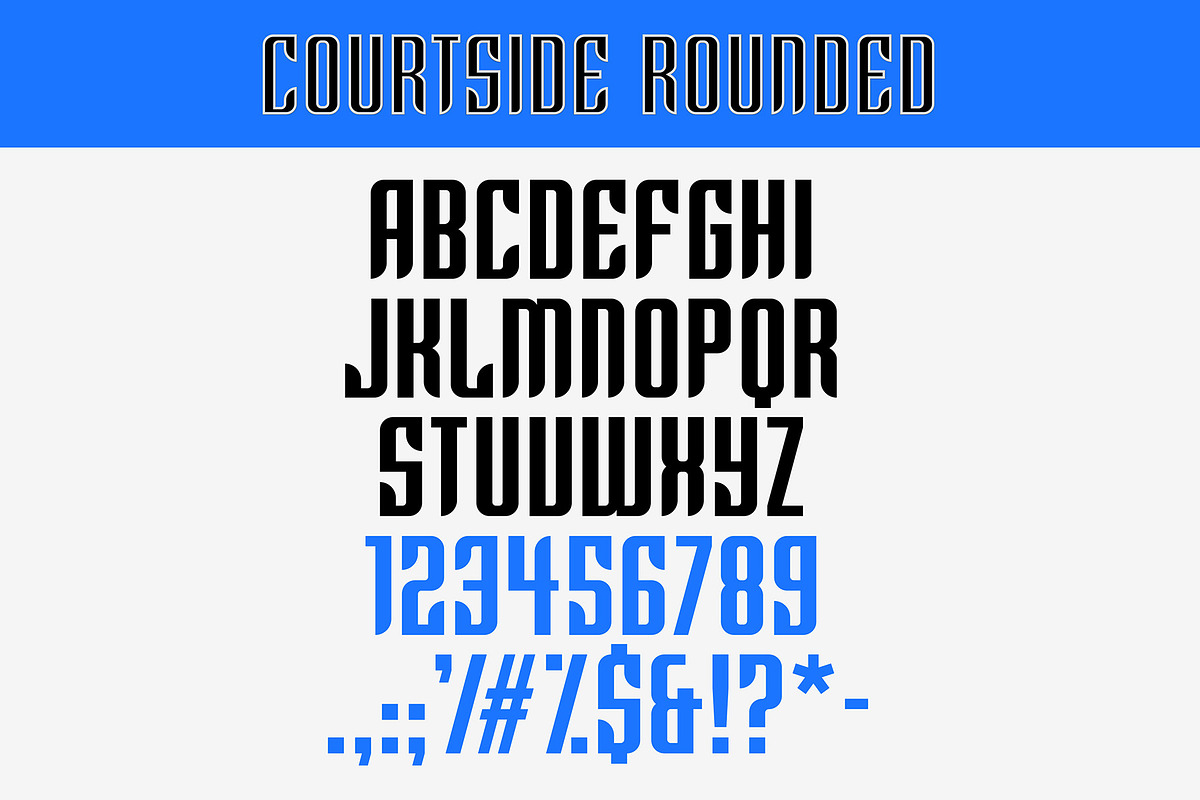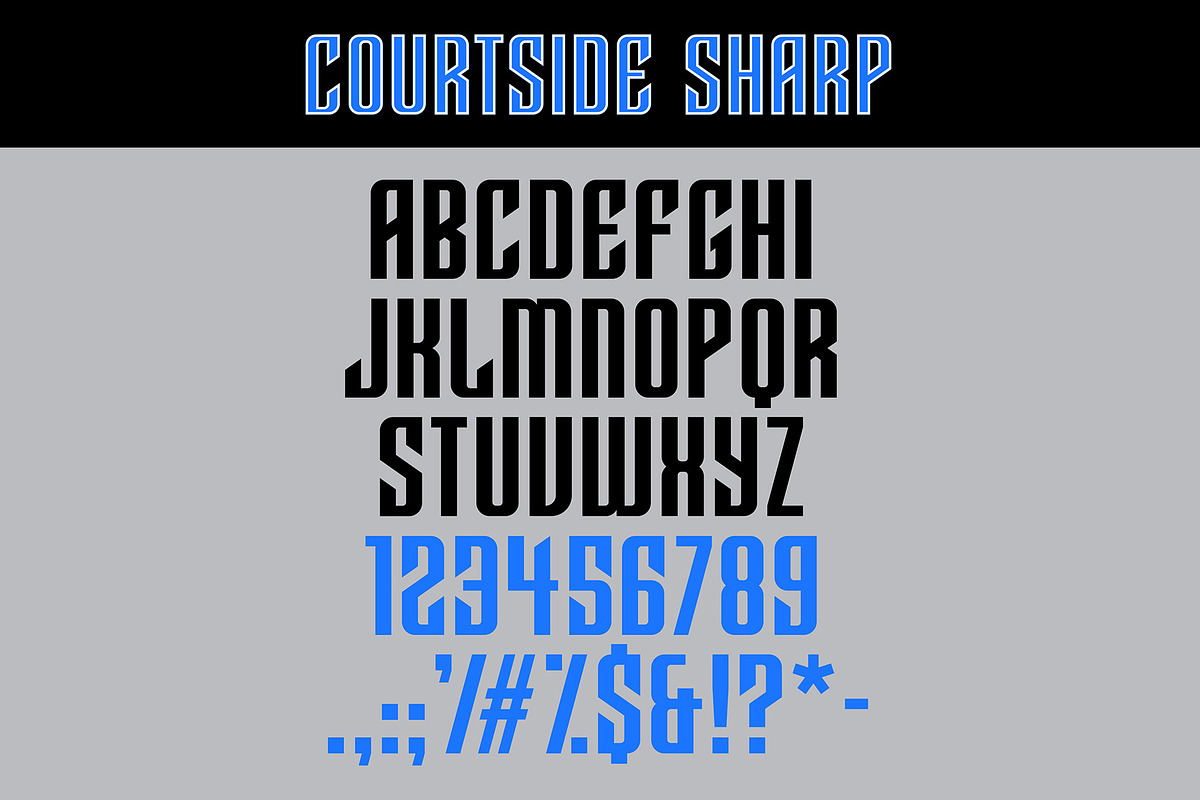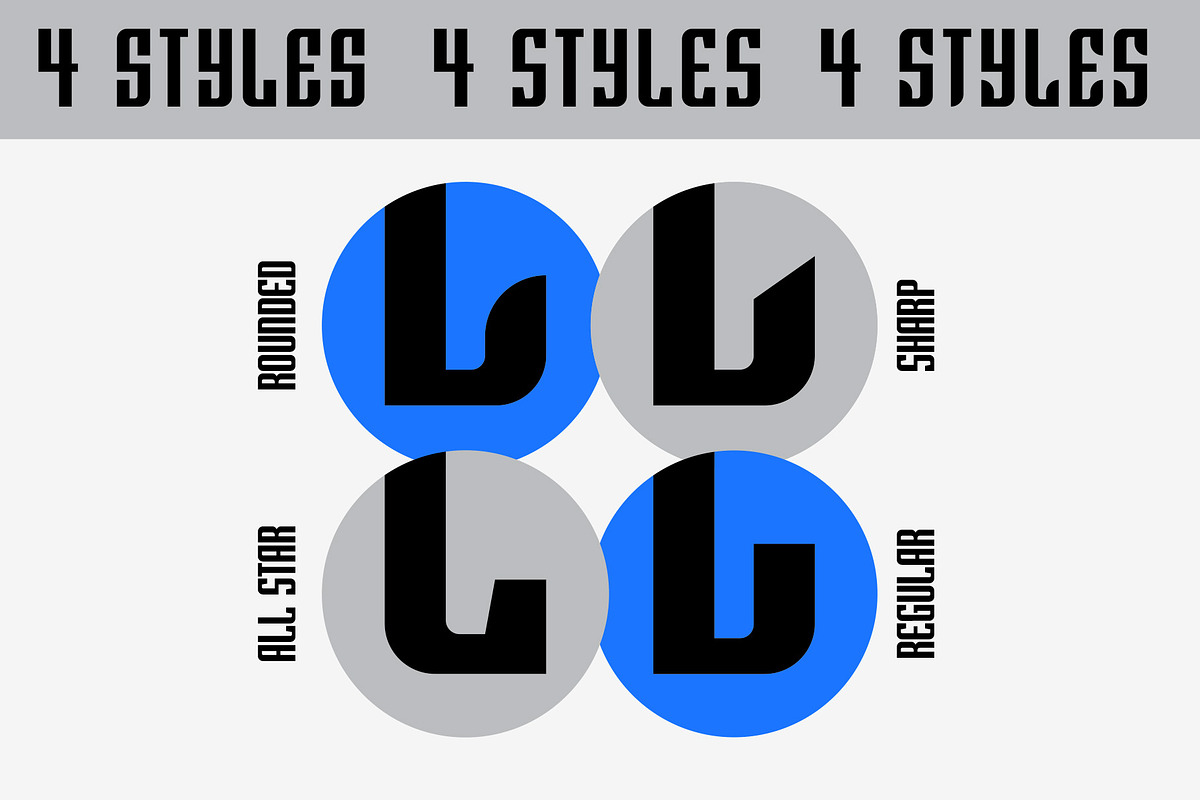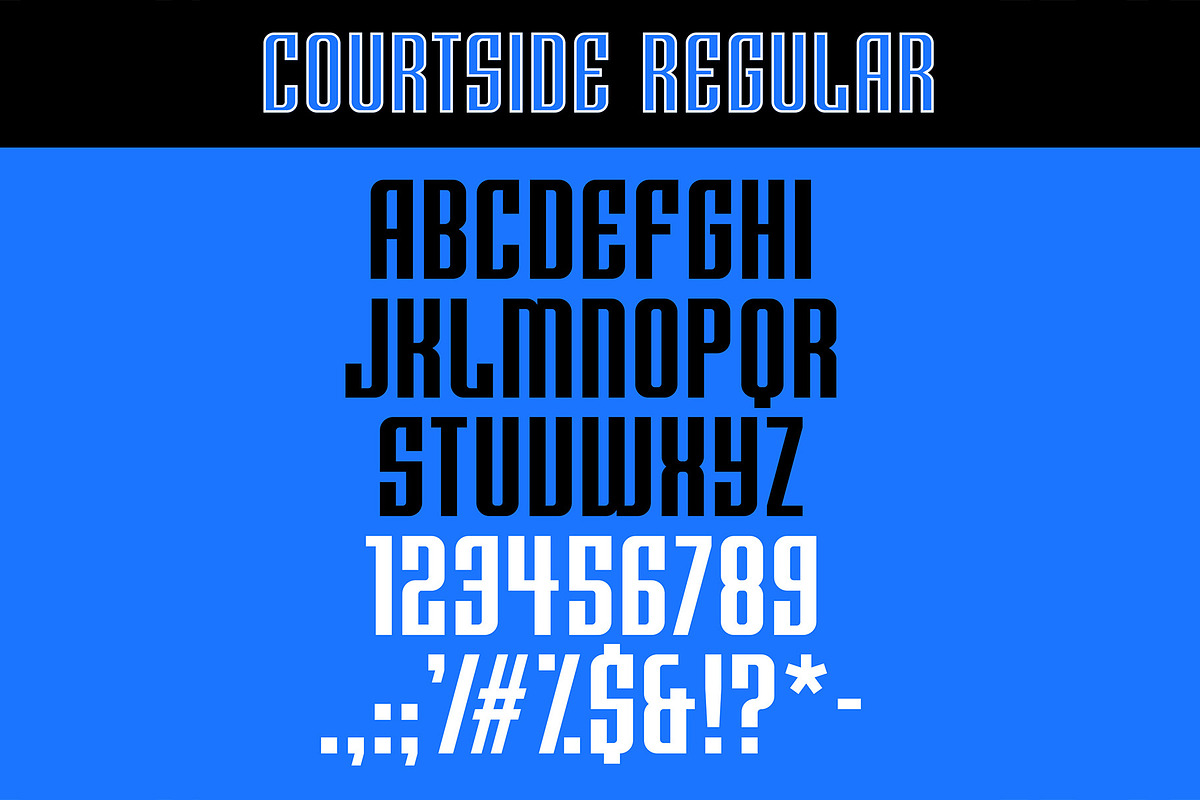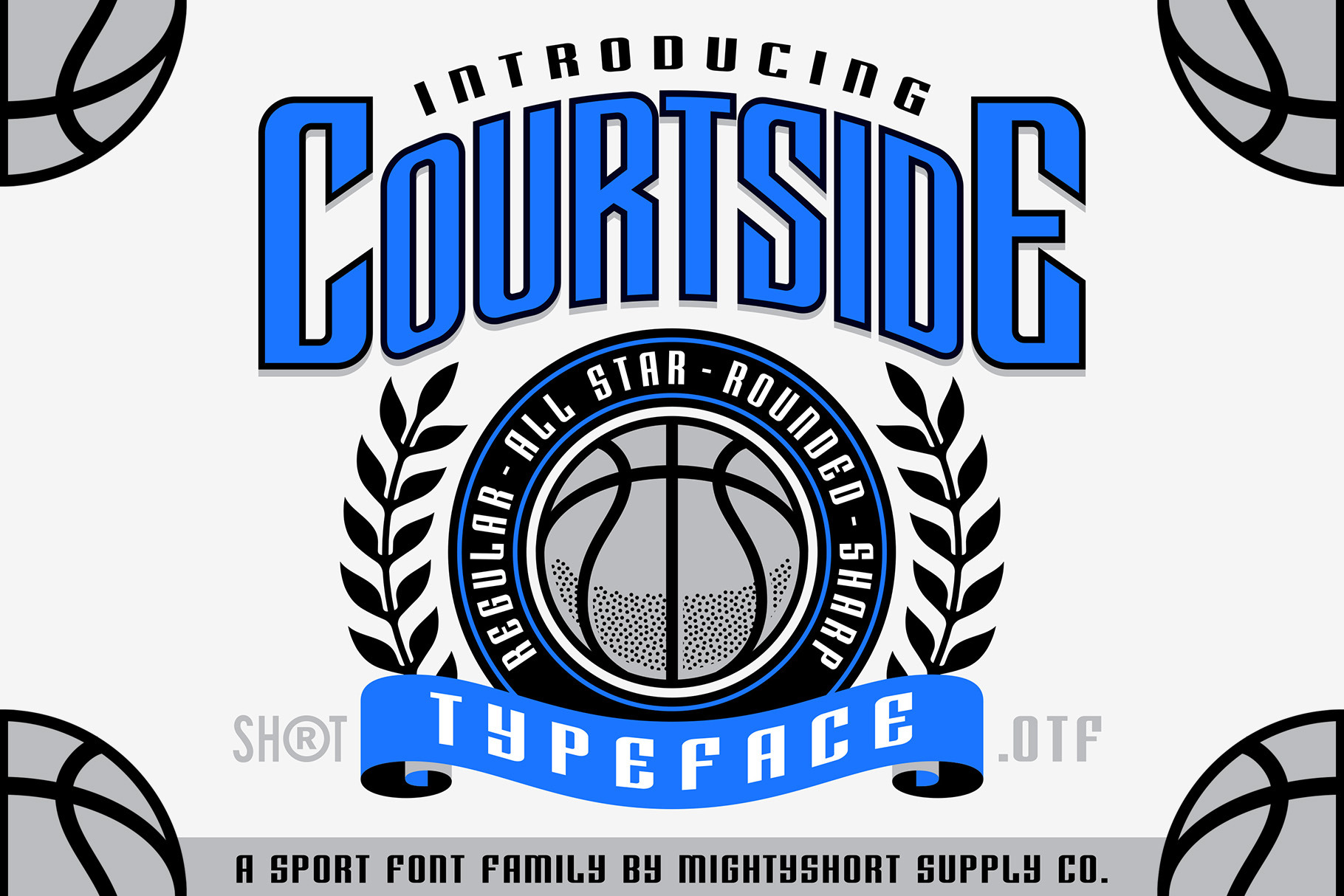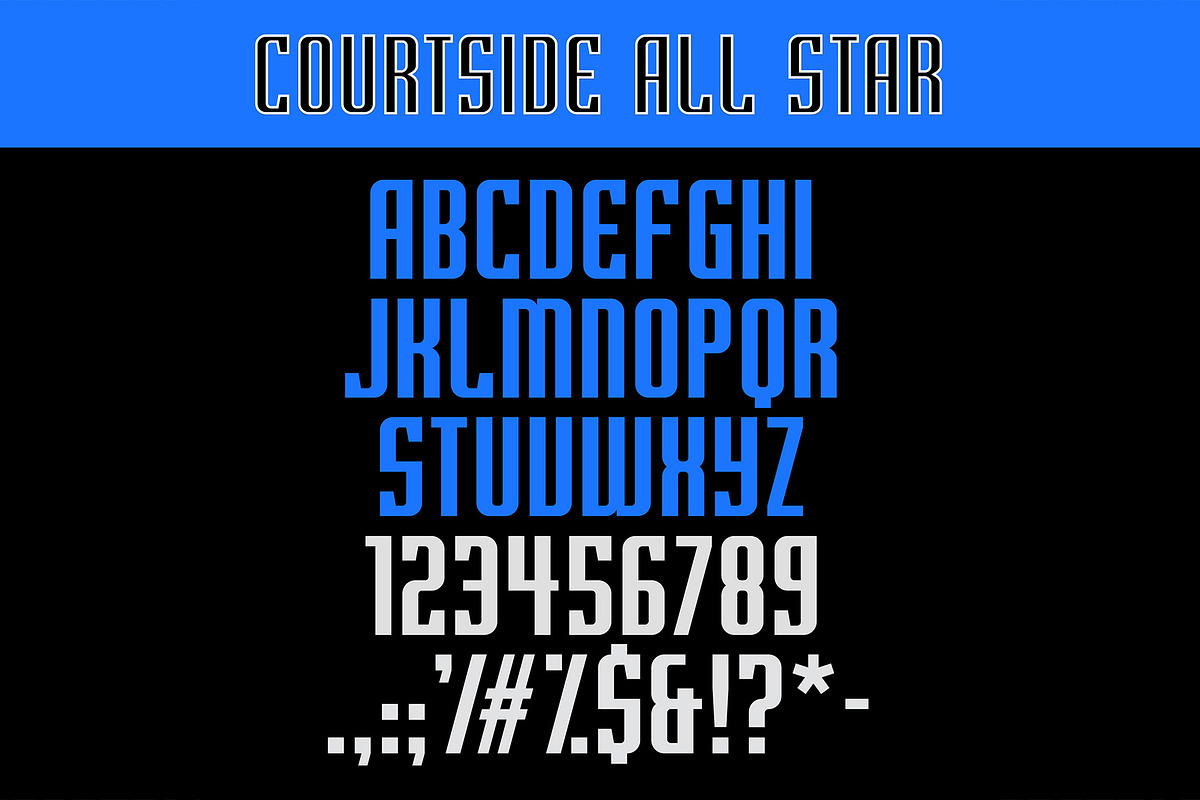
Courtside Typeface
Courtside is a typeface inspired by the sport aesthetic. The typeface includes 4 fonts: Courtside Regular, Courtside All Star, Courtside Rounded and Courtside Sharp. The 4 fonts come with uppercase, lowercase, numbers, punctuation and some alternate characters.